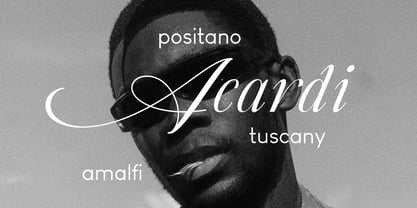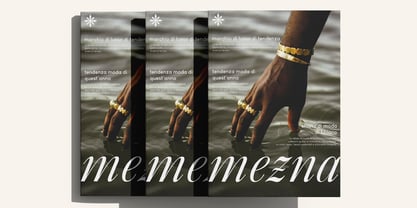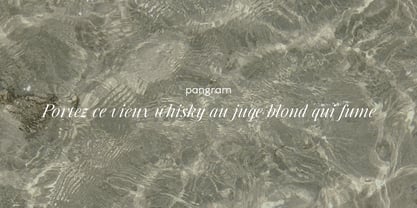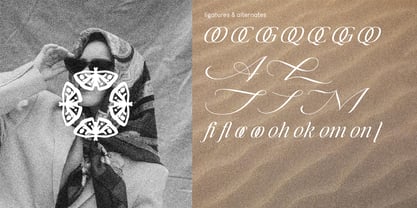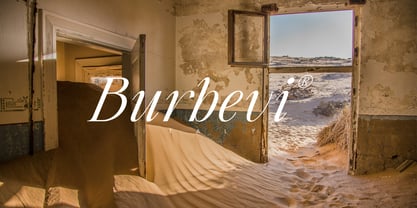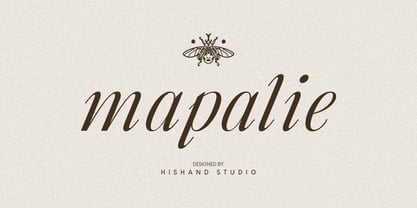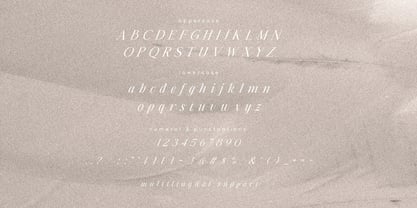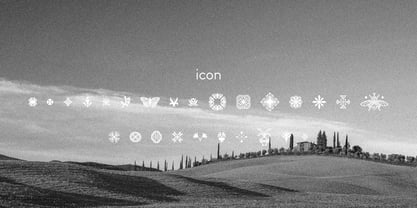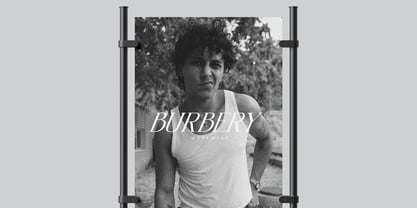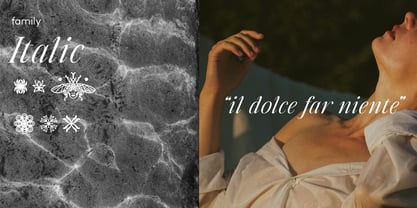
Mapalie
by Hishand Studio
The Mapalie Font Family was designed by Putu Dody Permana and published by Hishand Studio. Mapalie contains 2 styles and family package options. More about this family
Meet Mapalie, an italic serif font that brings a touch of elegance, class, and luxury to your designs. Its smooth curves and stylish details make every letter feel graceful, while the italic style adds personality and a sense of movement. Whether you’re working on branding, invitations, fashion projects, or packaging, Mapalie gives your work a refined and timeless look.
To make things even better, Mapalie also comes with 26 custom icons that pair beautifully with the font. These little extras are perfect for adding unique accents to your layouts, giving you more flexibility and creative options right out of the box.
With its classy vibe and versatile design, Mapalie isn’t just another serif font it’s a tool to help your projects feel polished, stylish, and unforgettable. Complete with
• ligatures
• alternates
• Italic
• icon
• kerning
• multilingual support
Designers: Putu Dody Permana
Foundry: Hishand Studio